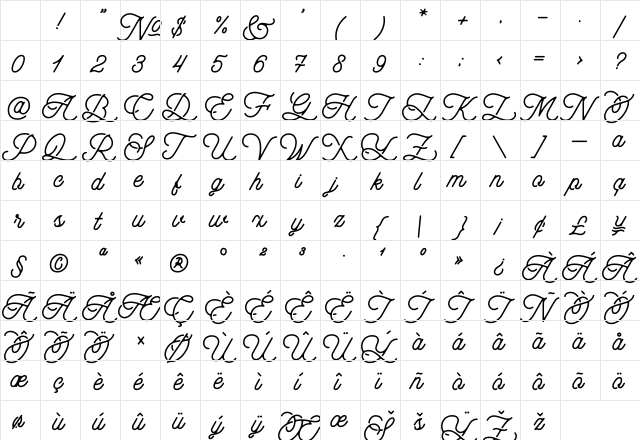
Complete aaleyah- PERSONAL-USE-ONLY glyph index. Displaying only characters natively supported by aaleyah- PERSONAL-USE-ONLY font.
aaleyah- is a composed and adaptable typeface that performs quietly and consistently across a wide range of design contexts.